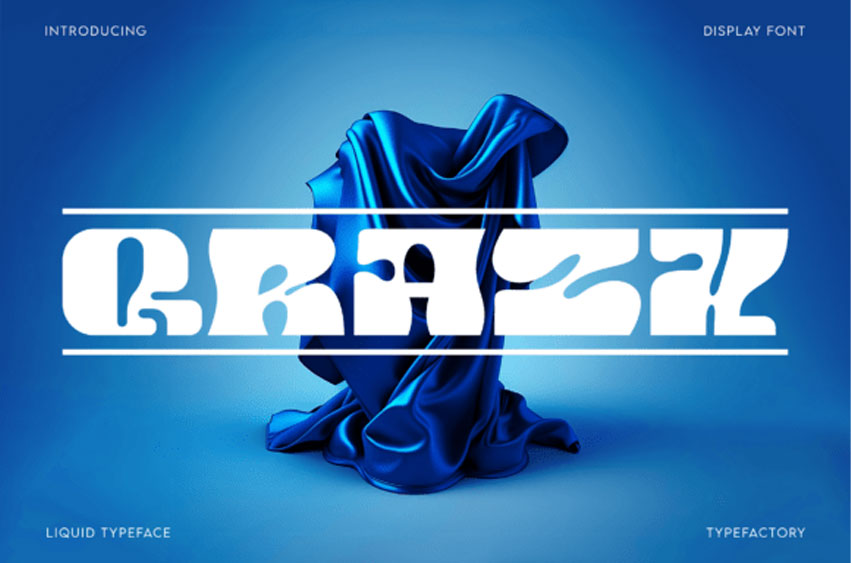
Qrazx Font is a futuristic Y2K display font that blends liquid curves, experimental shapes, and retro-tech aesthetics into a bold visual statement. Inspired by the optimistic digital era of the late 1990s and early 2000s, its fluid letterforms create a distinctive cyber-inspired look that feels both nostalgic and forward-thinking.
Perfect for music posters, album artwork, fashion branding, gaming graphics, tech events, streetwear designs, packaging, editorial headlines, and creative digital projects, Qrazx delivers an unmistakable futuristic personality that instantly captures attention.